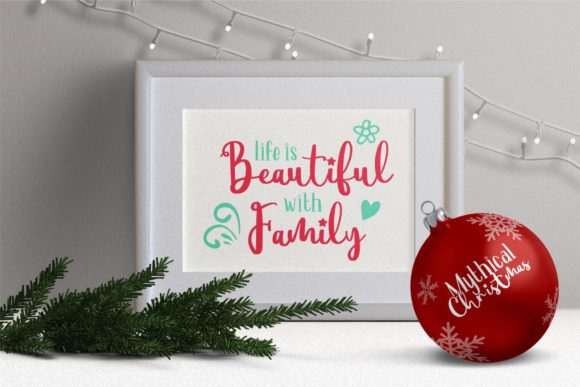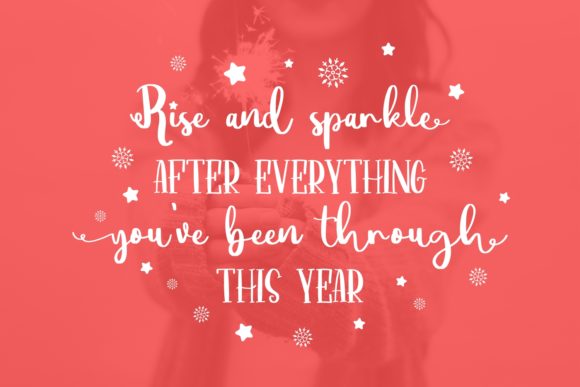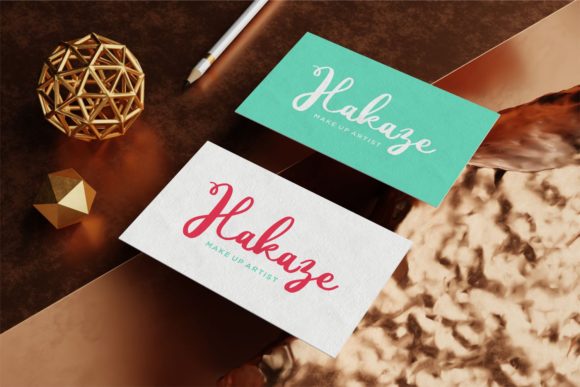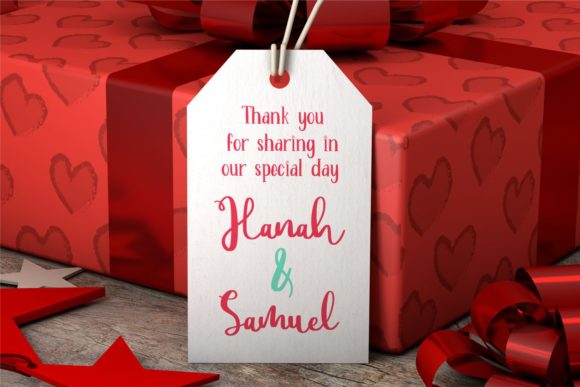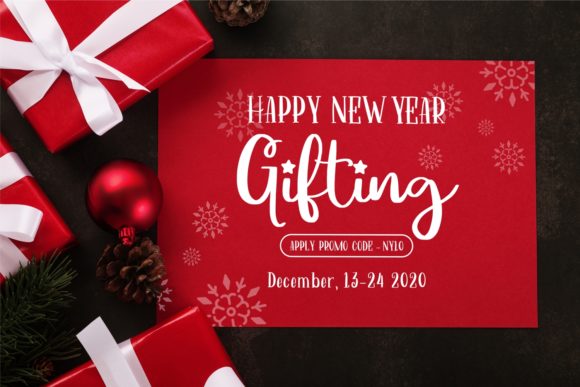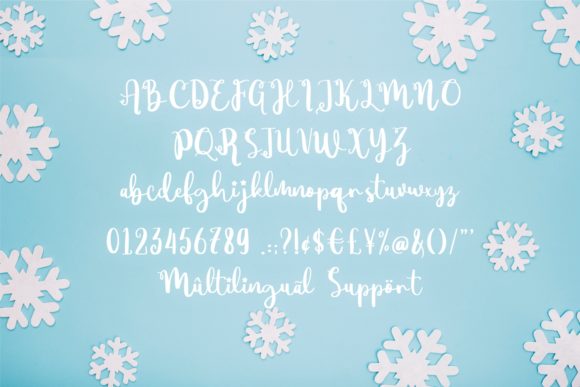
Introduction to Mythical Christmas Font
Mythical Christmas is a lovely versatile handwritten font.
Not too thin and not too thick, balanced and varied, this font was designed to enhance the beauty of your projects .
Key Features of Mythical Christmas Font
Why Choose Mythical Christmas Font?
Mythical Christmas Font offers exceptional quality and versatility, making it a valuable addition to your design toolkit. Whether you’re creating for personal projects or commercial use, Mythical Christmas Font delivers professional results.